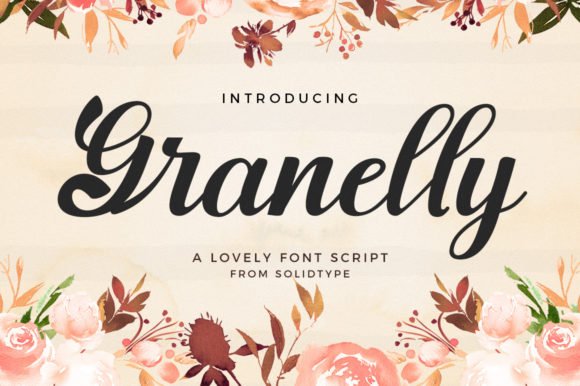
The Perfect Font for Your Creative Masterpiece
Have you ever stared at a blank page, waiting for inspiration to strike? For many creatives, this is a familiar feeling. But what if I told you that the perfect font could be the key to unlocking your next big idea? For designers and artists looking to add a touch of elegance and whimsy to their projects, the Granelly Script Font is a game-changer.
This lovely and classic handwritten font is perfect for a wide range of applications, from logos and wedding invitations to headings and t-shirts. Its versatility and charm make it a valuable addition to any designer’s toolkit.
Granelly Script Font Key Features
- Font Family: Granelly Script, Granelly Script Italic, Granelly Script Bold, Granelly Script Bold Italic
- Unique Characteristics: Handwritten, cursive script with elegant and sophisticated feel, ideal for invitations, quotes, and titles
Granelly Script Font Review
Overall, I was quite impressed with the Granelly Script Font. It’s a beautiful, elegant script font that’s perfect for adding a touch of sophistication to your designs. Here are some of the things that I think work well:
- ✨ Elegant and refined feel: Granelly Script Font is perfect for creating a high-end, luxurious feel in your designs.
- ✨ Beautiful connections: The connections between the letters are smooth and flowing, making it a joy to read.
- ✨ Great for invitations and wedding designs: The font is perfect for creating beautiful wedding invitations and other special occasion designs.
However, there are a few limitations that I want to point out:
- ⚠️ Limited font sizes: While the font looks great at large sizes, it can become a bit blurry and hard to read at smaller sizes.
- ⚠️ Not ideal for body text: While the font is perfect for headings and titles, it’s not the best choice for body text due to its decorative nature.
Overall, I would highly recommend the Granelly Script Font for designers who are looking to add a touch of elegance to their designs. While it may have some limitations, its beautiful feel and connections make it a great choice for a wide range of design projects.
Granelly Script is ideal for creating elegant and sophisticated designs, such as:
– Luxury brand logos and packaging
– High-end product labels and tags
– Creative blog titles and headings
– Social media graphics and promotions